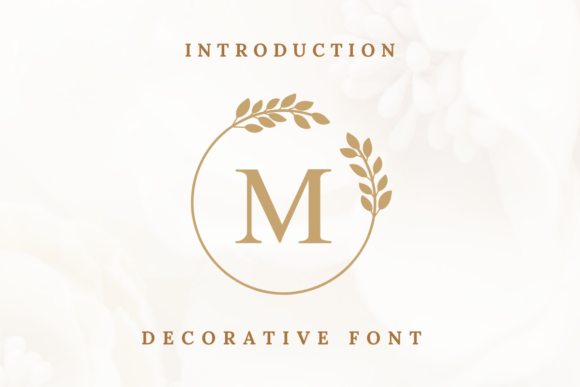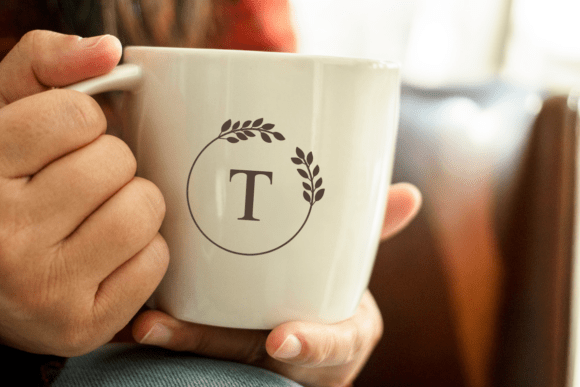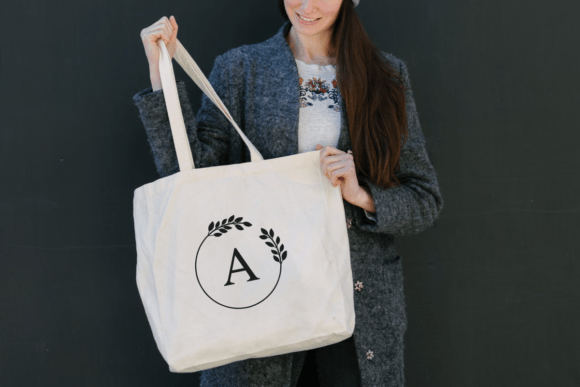
About the Mama Flower Monogram Font
Step up your design game with Mama Flower Monogram Font, a font that exudes confidence and style. Mama Flower Monogram is a gorgeous decorative font. You can use it for taking notes, writing a diary, or making greeting cards. However, you can still use it for other designs, such as banners, content, mugs, cards, shirts, stationery, social media posts, and more!
Its decorative nature makes Mama Flower Monogram ideal for headlines, short text blocks on branding materials, and projects requiring a touch of vintage charm. It excels in applications like logos, wedding invitations, and packaging for artisanal products. However, its ornate style is less suitable for body text or UI elements where readability is paramount; long paragraphs would be difficult to decipher.
The font’s personality is undeniably feminine and playful, yet sophisticated. Consider pairing it with a clean sans-serif like Lato for a balanced contrast, or a classic serif like Garamond for a more traditional feel. For a more modern twist, a geometric sans-serif like Montserrat could work well.
A script font like Great Vibes could add an extra layer of elegance when used sparingly alongside Mama Flower Monogram, particularly effective for creating a cohesive brand identity for boutiques or businesses focusing on handcrafted goods.